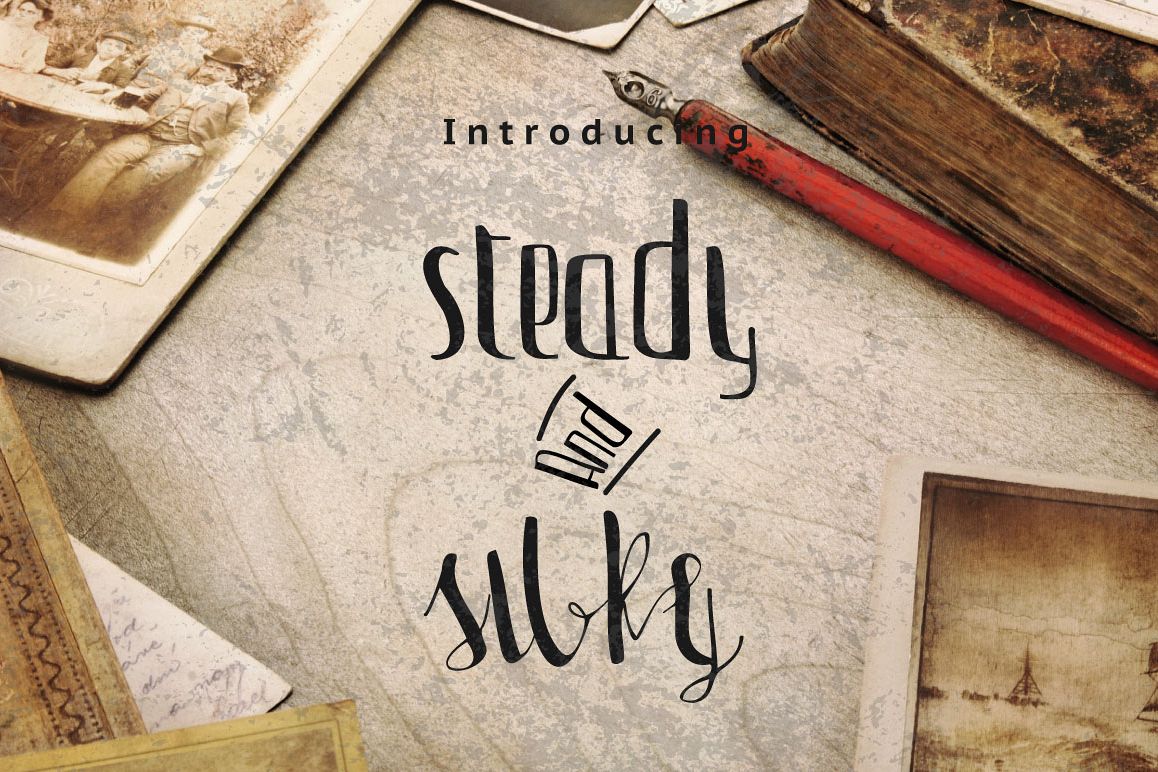
Steady & Silky Typeface + Extras
steady
Steady is handmade Formal script font cooked with feeling. Including a tons of glyphs, alternates, ligatures and multiple language support.
Silky is handmade caligraphy script font cooked with feeling. Including a tons of glyphs, alternates, standard ligatures, discretionery ligature and multiple language support.